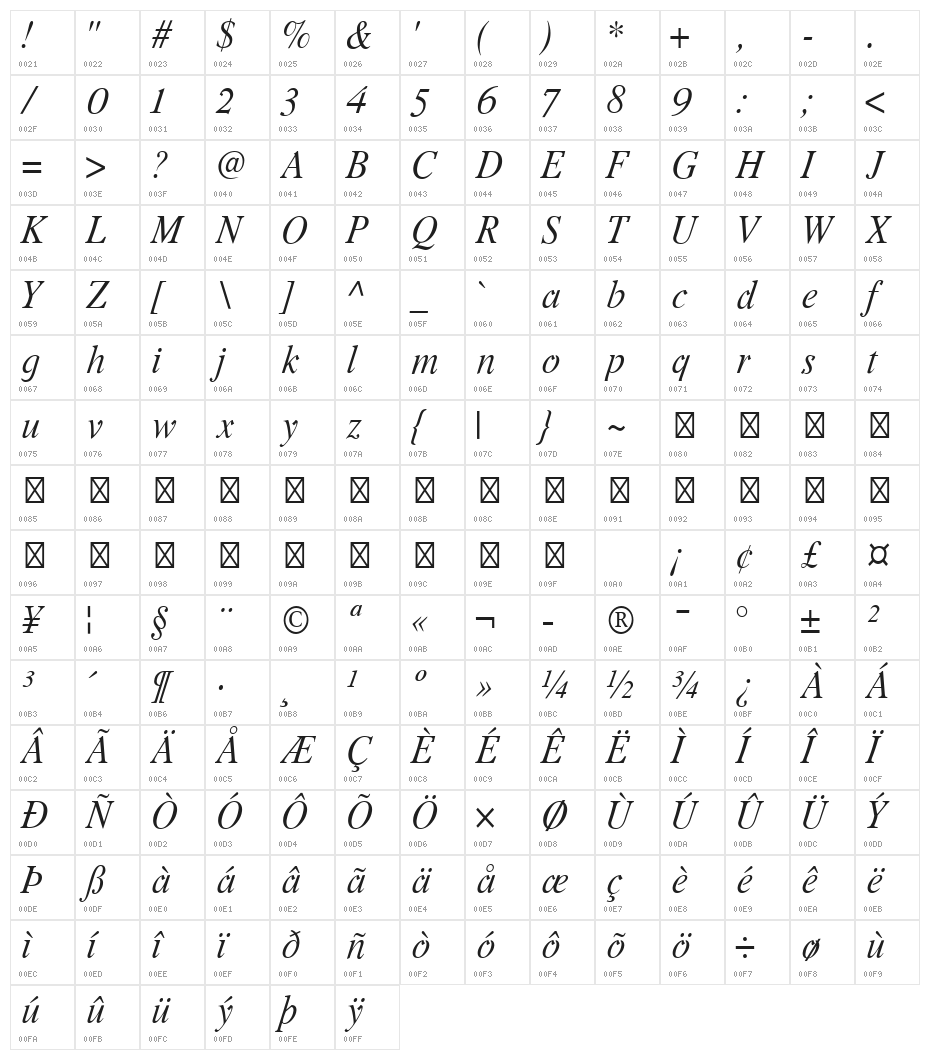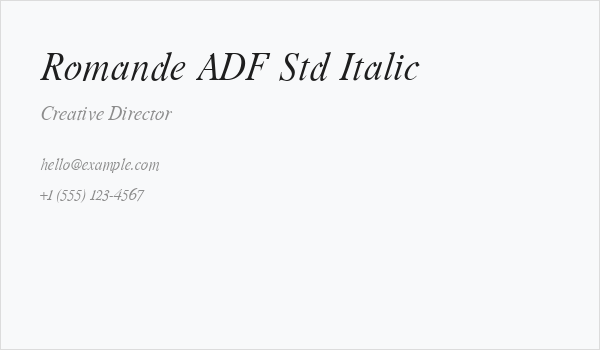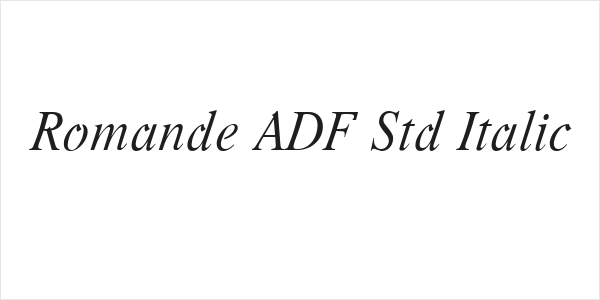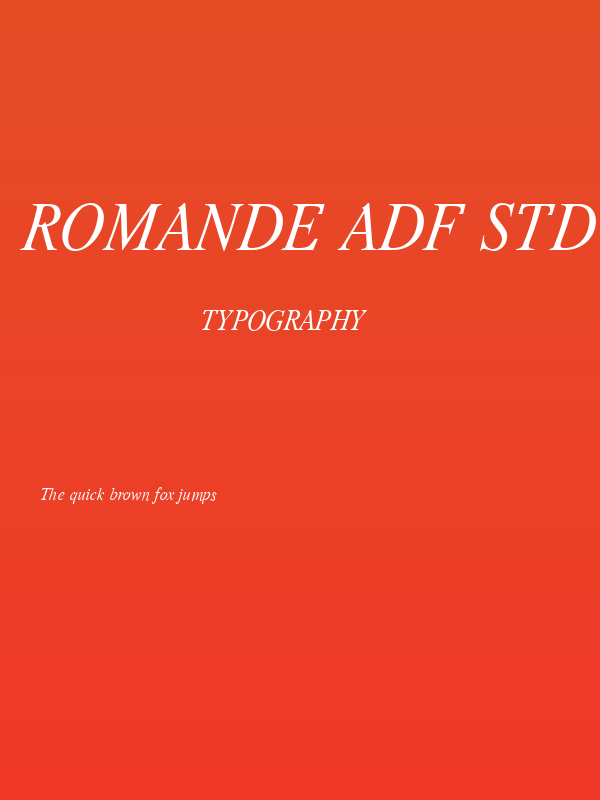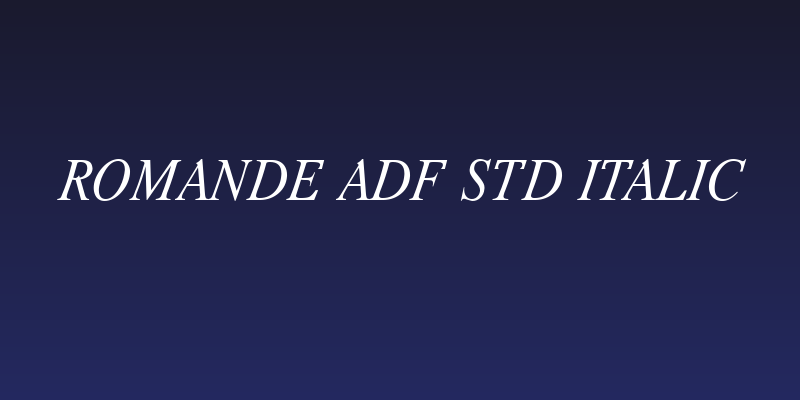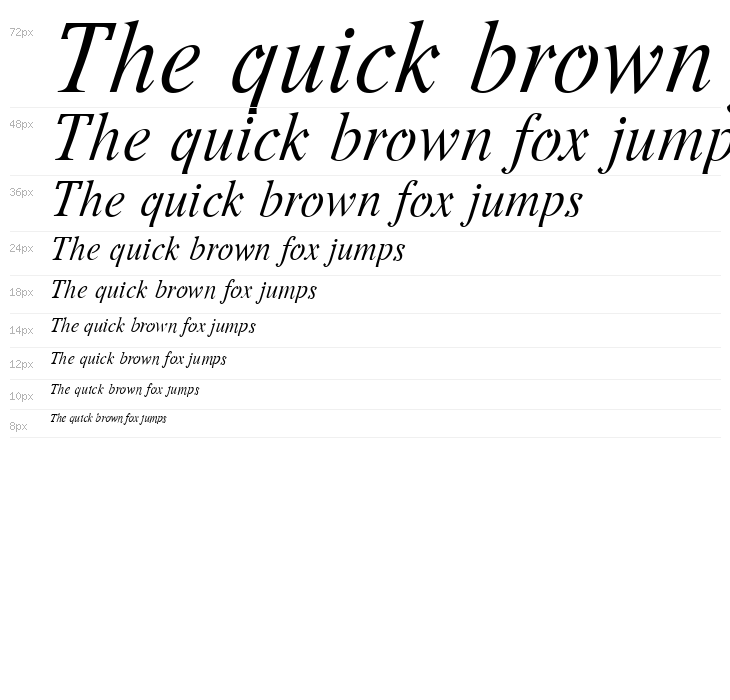
Romande ADF Std Italic Font
Romande ADF Std Italic Description
This elegant serif font features a classic italic style with smooth, flowing lines and a refined appearance. The characters are slightly slanted, giving a sense of motion and sophistication. The uppercase letters are tall and stately, while the lowercase letters maintain a consistent style with gentle curves. The numerals are clear and easy to read, complementing the overall design. Special characters are well-integrated, maintaining the font's graceful aesthetic. This font is suitable for projects that require a touch of elegance and tradition.
Overall StyleClassic
Proposed ProjectsIdeal for wedding invitations, formal documents, luxury branding, and editorial design.